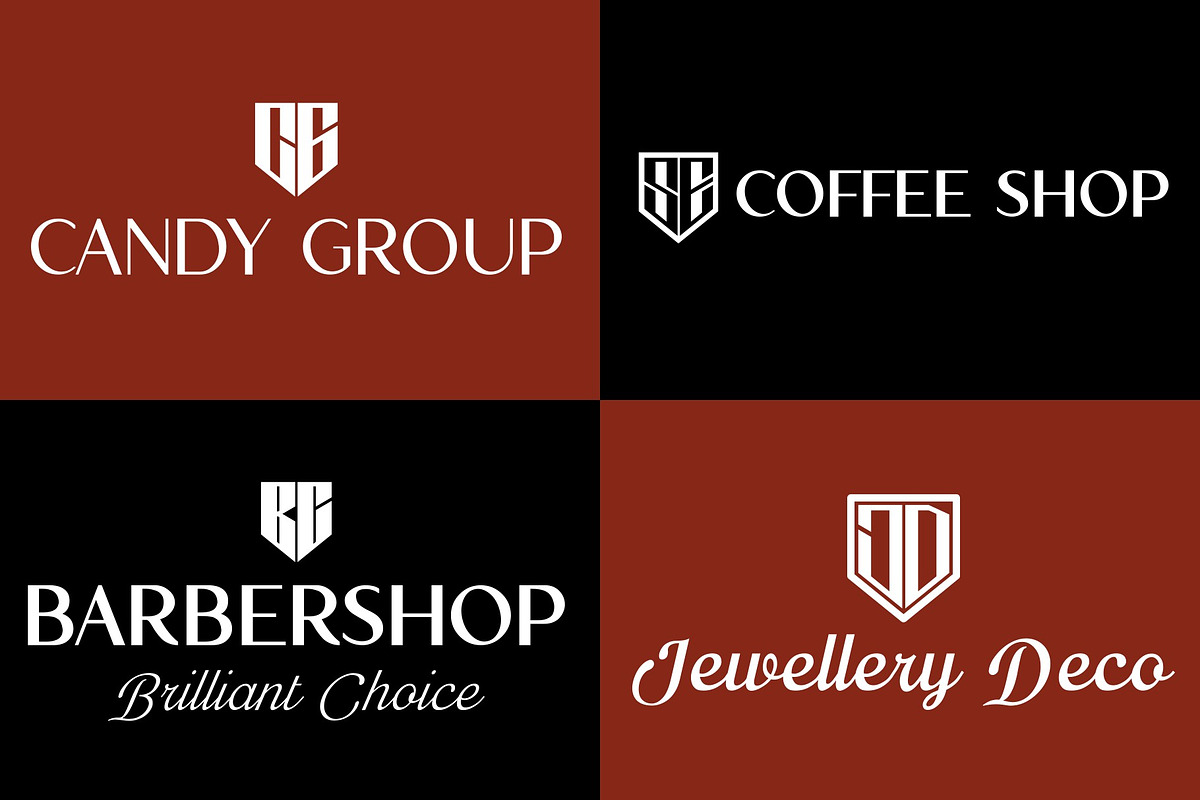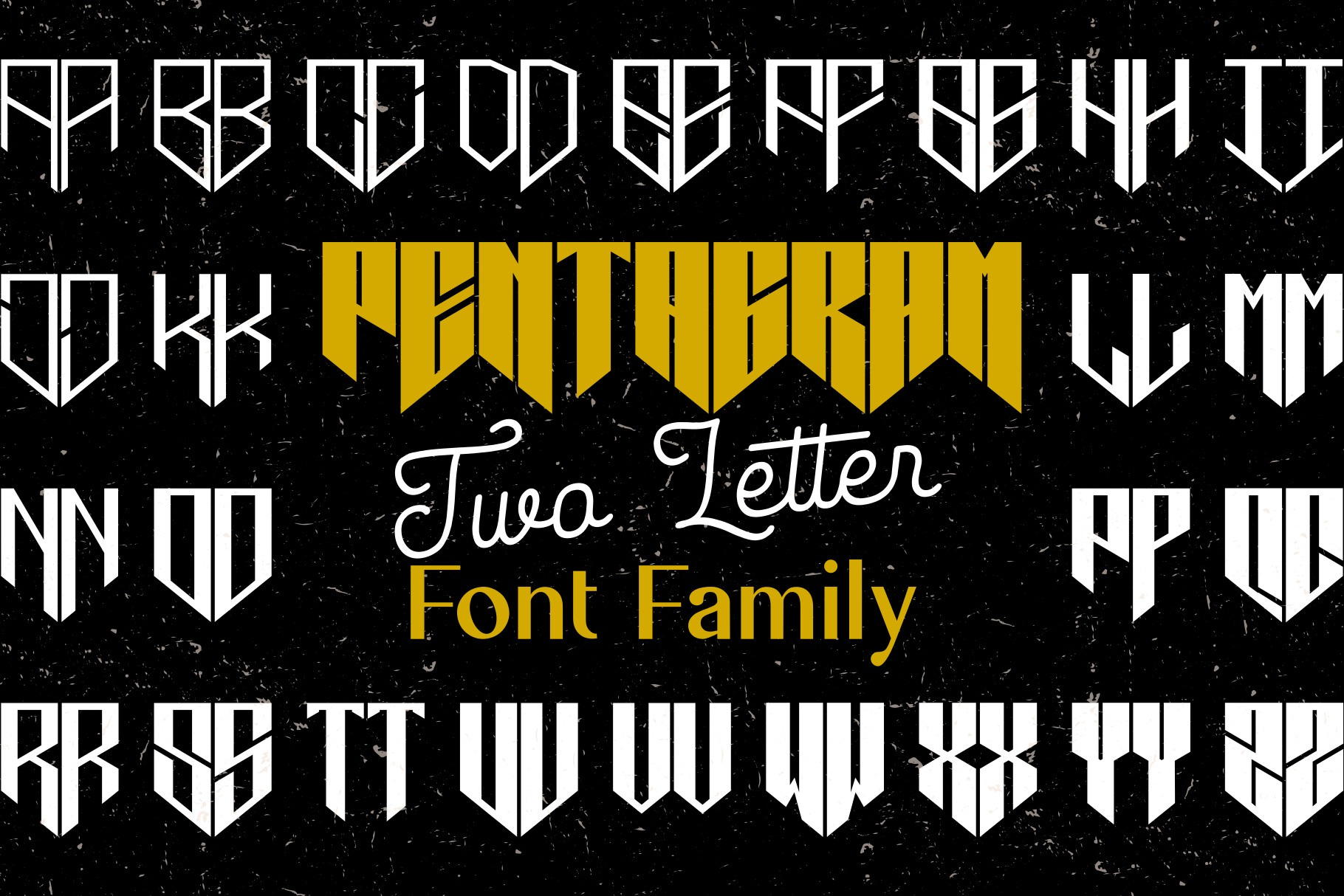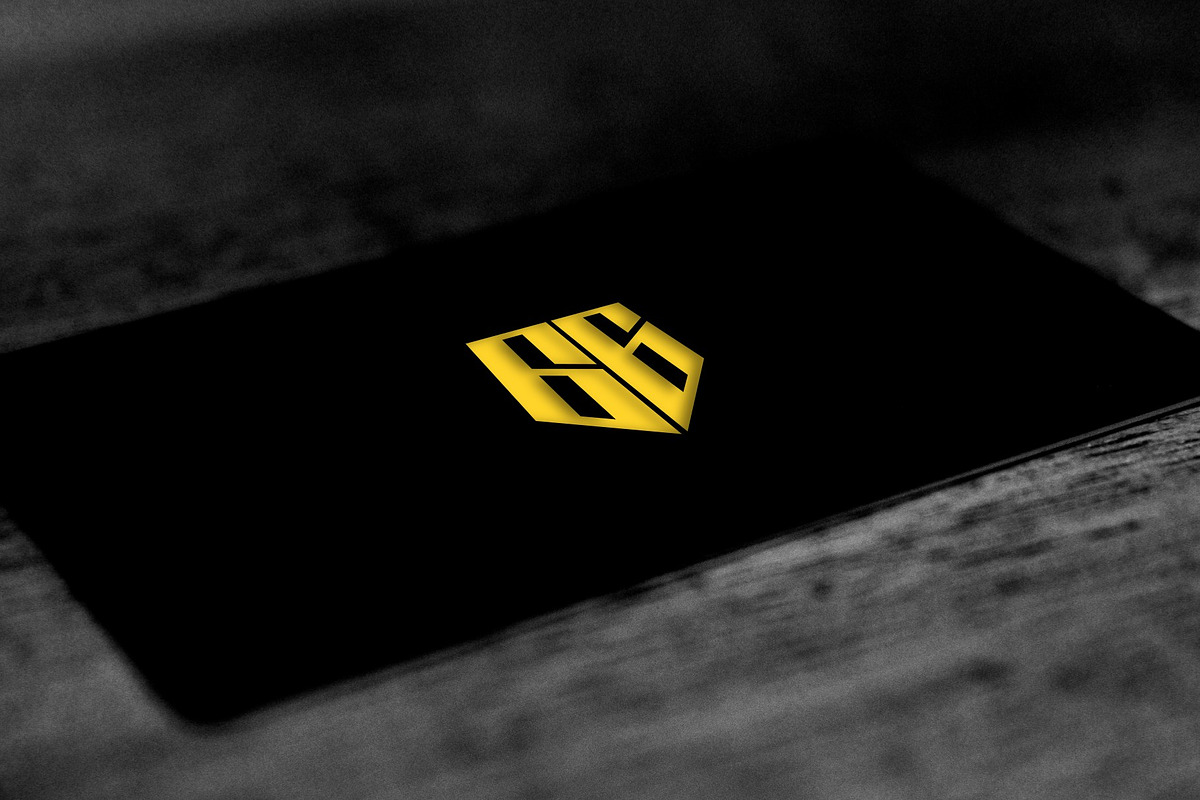
Pentagram TwoLetter - Logo Font
Pentagram TwoLetter Monogram Logo Font Family with OpenType magic that can adjust to front and back letters, there are 10 frame variations that you can access at numbers 0-9 how to activate it simply by adding a number in front of your initials, typing something (0AB - 9AB) it will automatically compose . you can use it on any Logo project it is perfect to add to your collection.
Pentagram TwoLetter font FAMILY – includes 9 weights (Thin, Extra light, Light, Regular, Medium, Semi Bold, Bold, Extra Bold, Black) :
- Pentagram TwoLetter Thin
- Pentagram TwoLetter Extralight
- Pentagram TwoLetter Light
- Pentagram TwoLetter Regular
- Pentagram TwoLetter Medium
- Pentagram TwoLetter Semibold
- Pentagram TwoLetter Bold
- Pentagram TwoLetter Extra Bold
- Pentagram TwoLetter Black